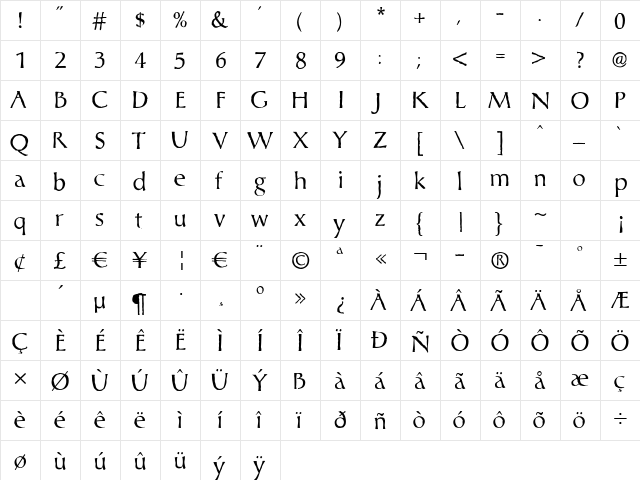
Plato Medium
Design Context for Plato Typeface
Plato takes a measured approach to typography — its balanced proportions and neutral character make it a reliable workhorse for both digital and print work.
Pro Tip: Use Plato in both headline and body roles to test its range before committing to a single application.